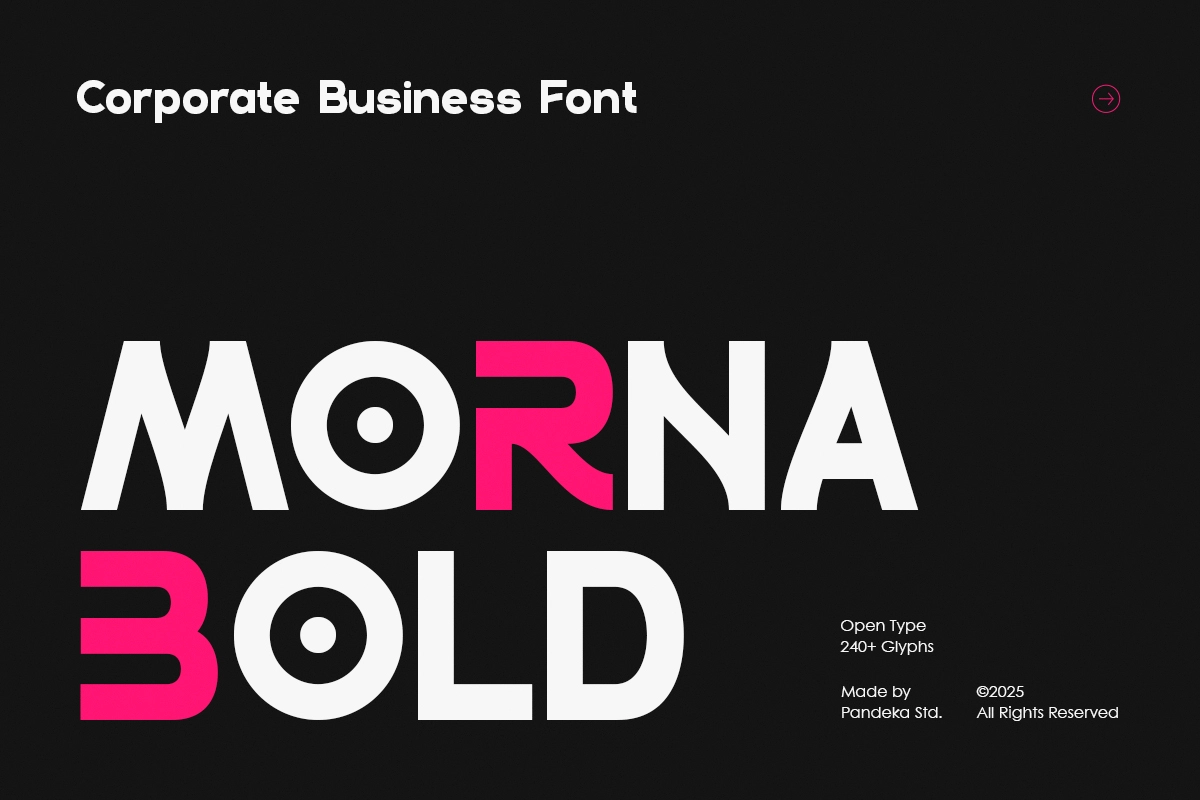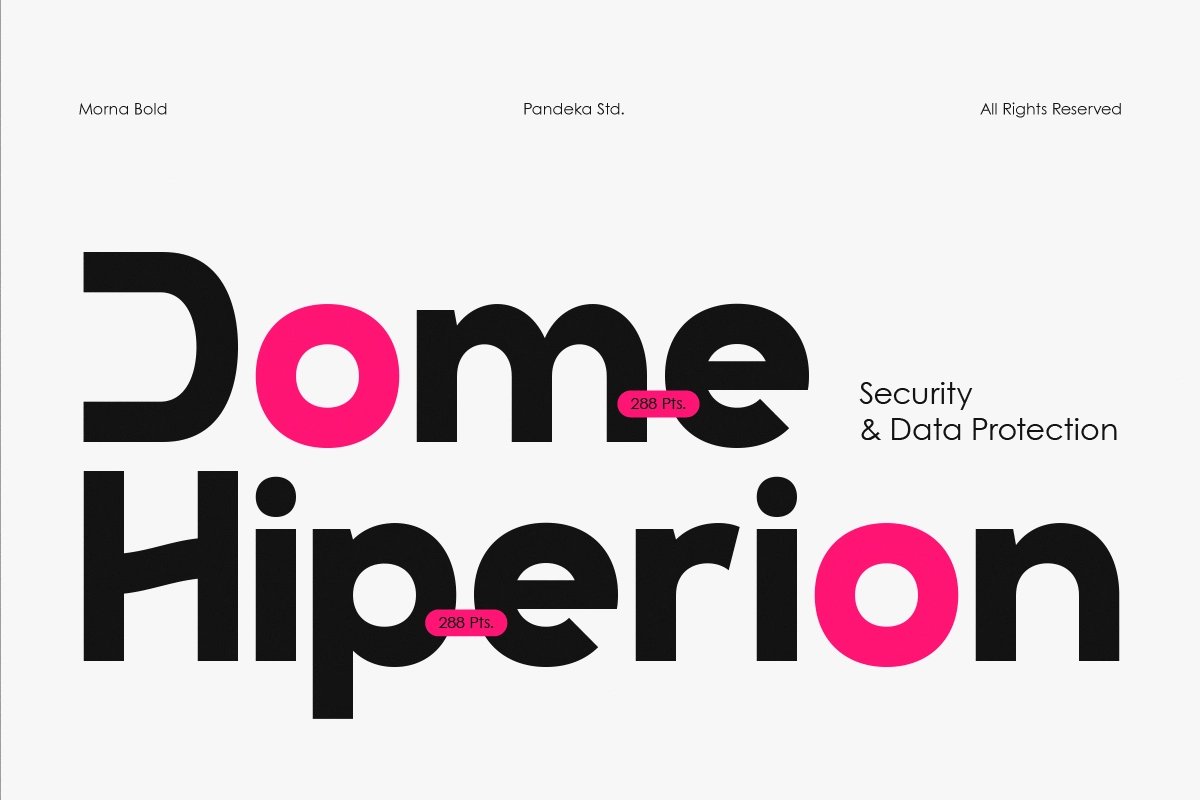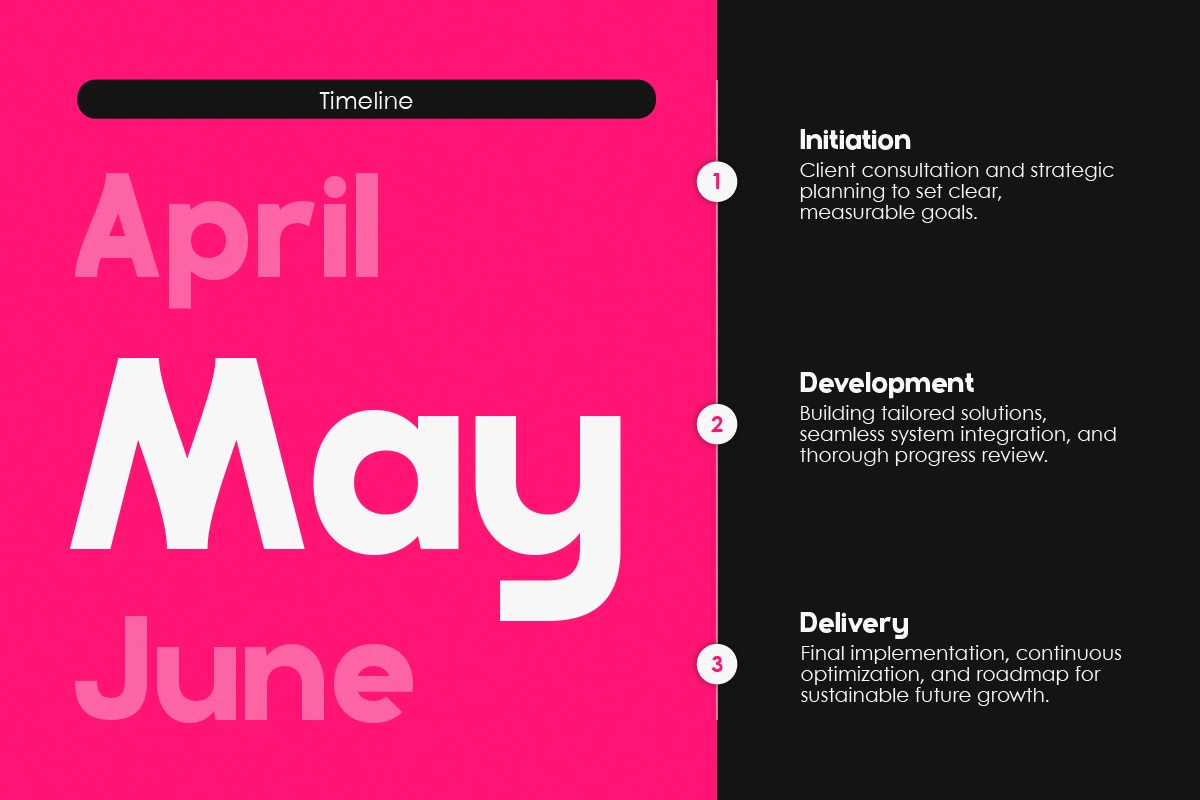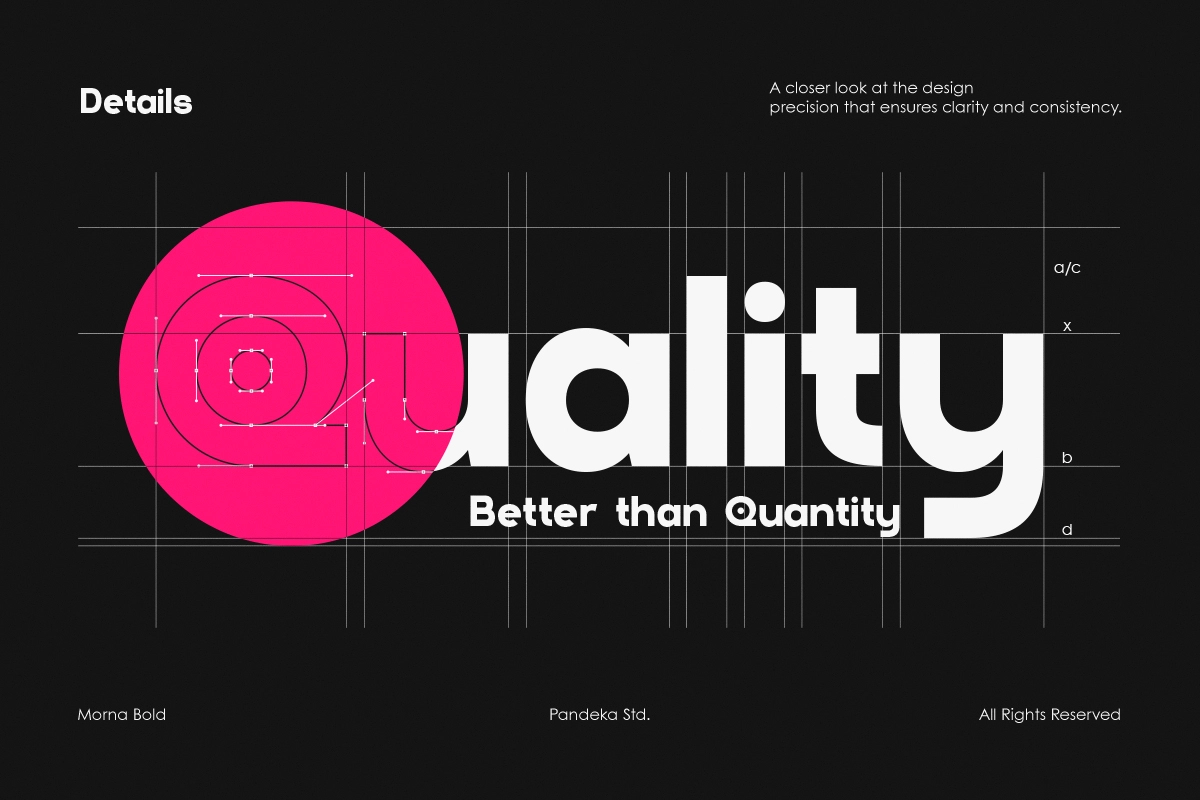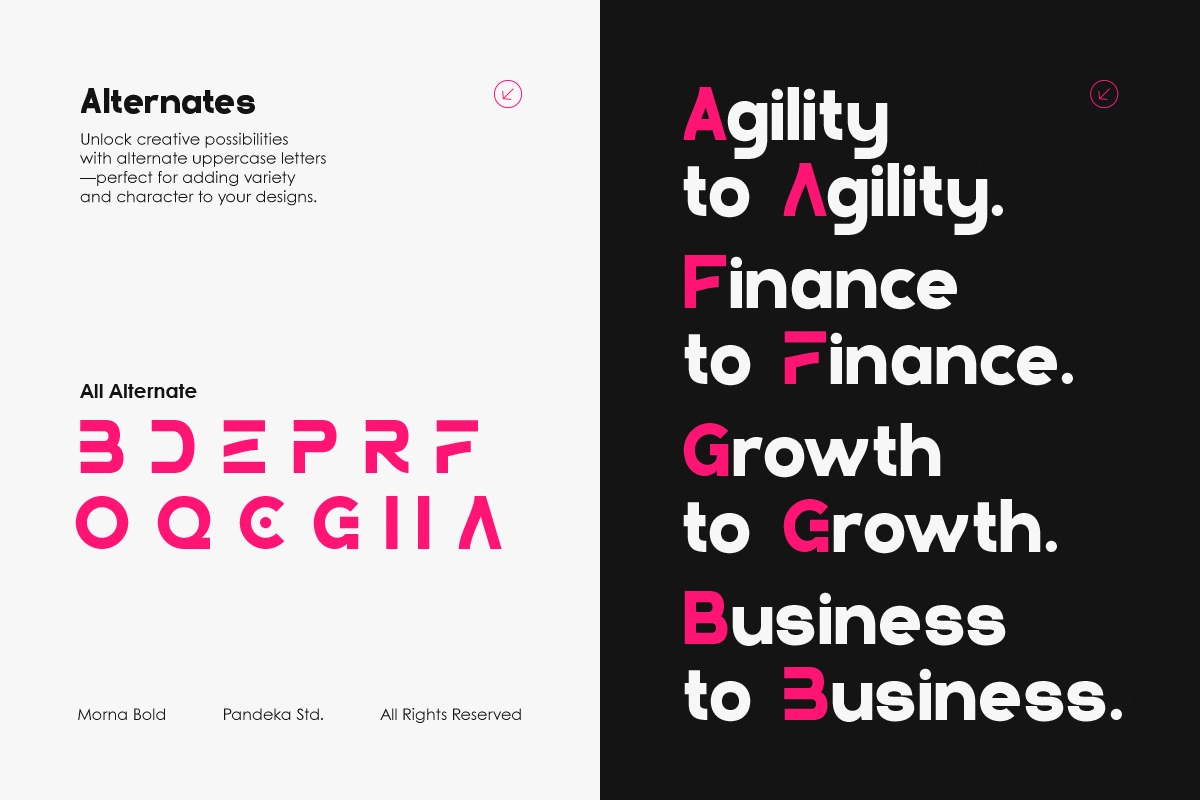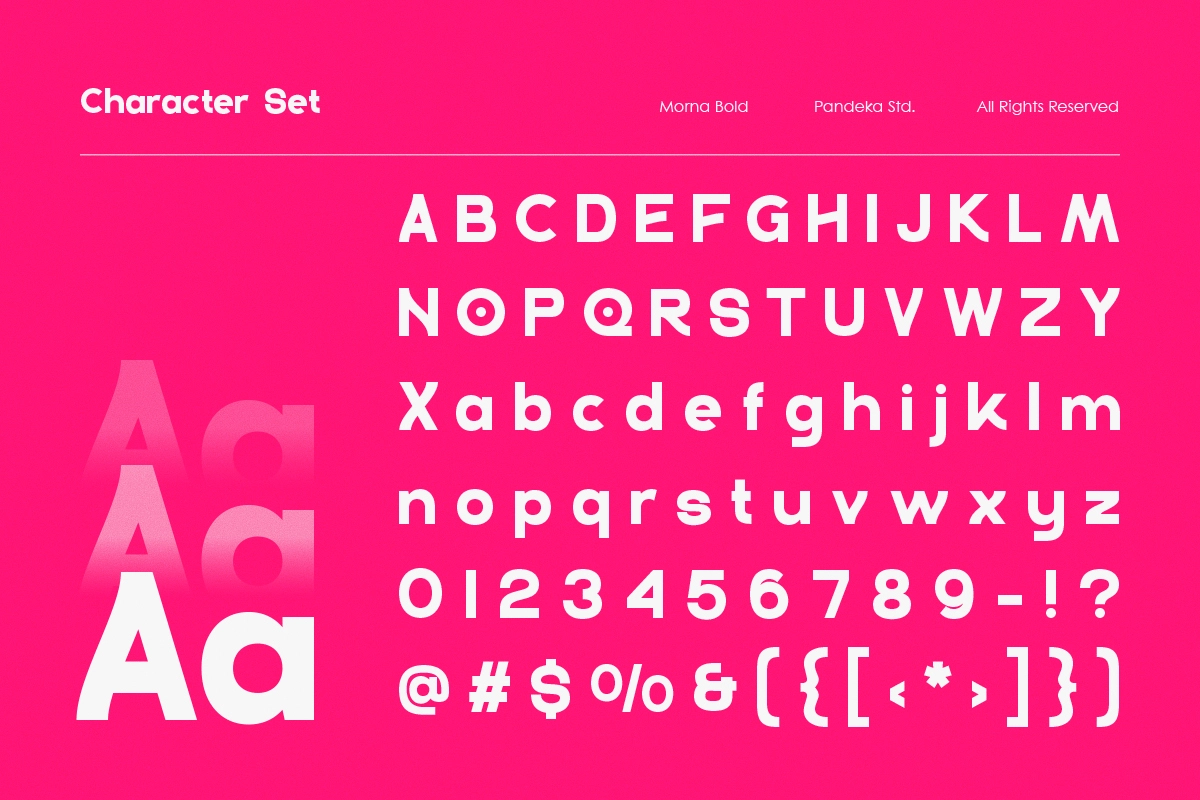
Morna Bold - Bold Tech Sans Serif Font
Morna Bold is a bold tech sans-serif font that strips geometric construction down to circles and diagonals — the capital O reads as a plain ring, the A closes to a sharp point. A parallel set of uppercase alternates slices the same letterforms with a single diagonal cut, trading the rounded stems for a sharper, more angular register without leaving the family.
Set in caps, Morna Bold holds an engineered, dashboard-ready edge that suits brand systems built on precision instead of warmth; drop in the alternates and the same wordmark turns angular and a touch more aggressive. Use it for tech and SaaS logotypes, startup branding, business presentations, dashboard headlines, app icons and interfaces, annual reports, conference signage, and more.
• Uppercase & lowercase;
• Numerals, punctuation & symbols;
• Alternate uppercase letterforms;
• Ligatures and stylistic alternates;
• Multilingual support;
• 240+ glyphs total